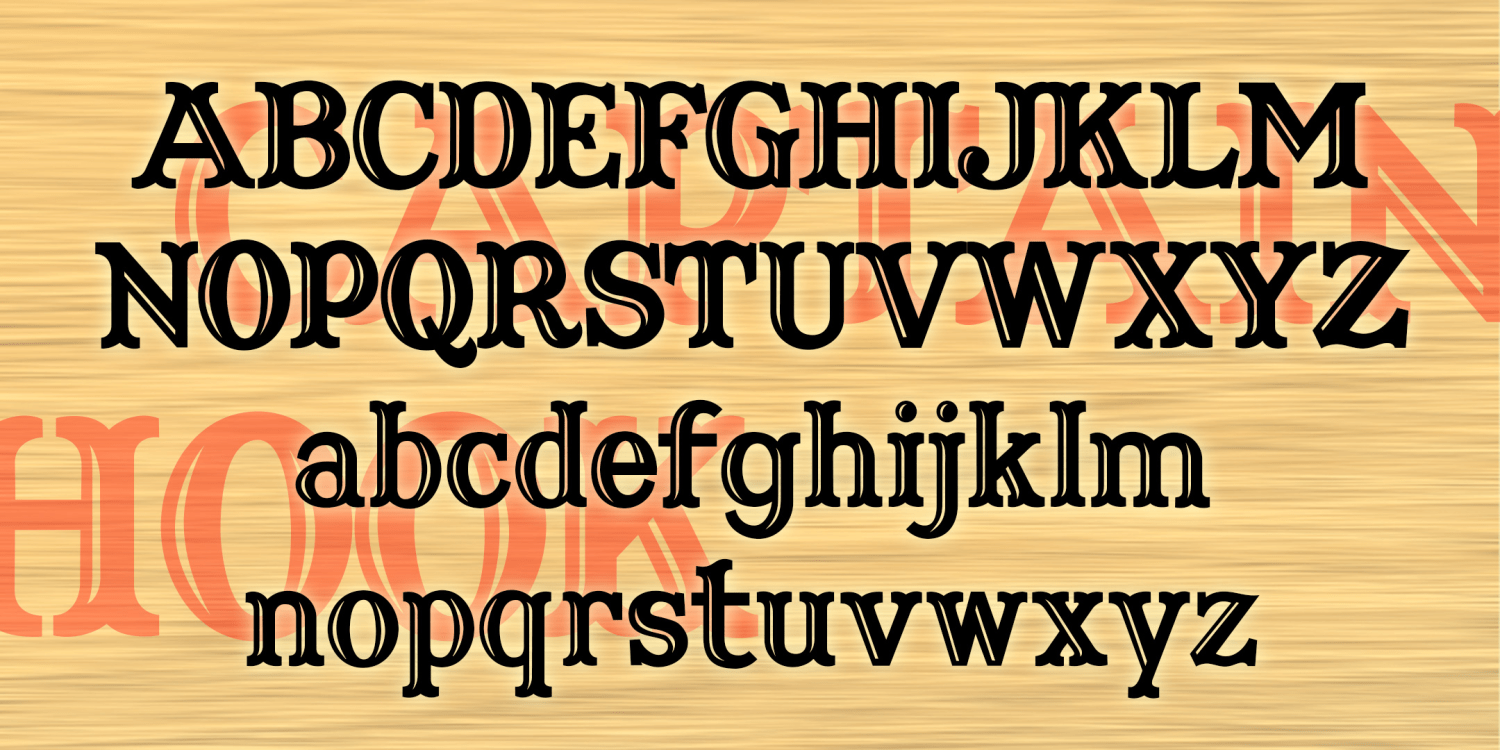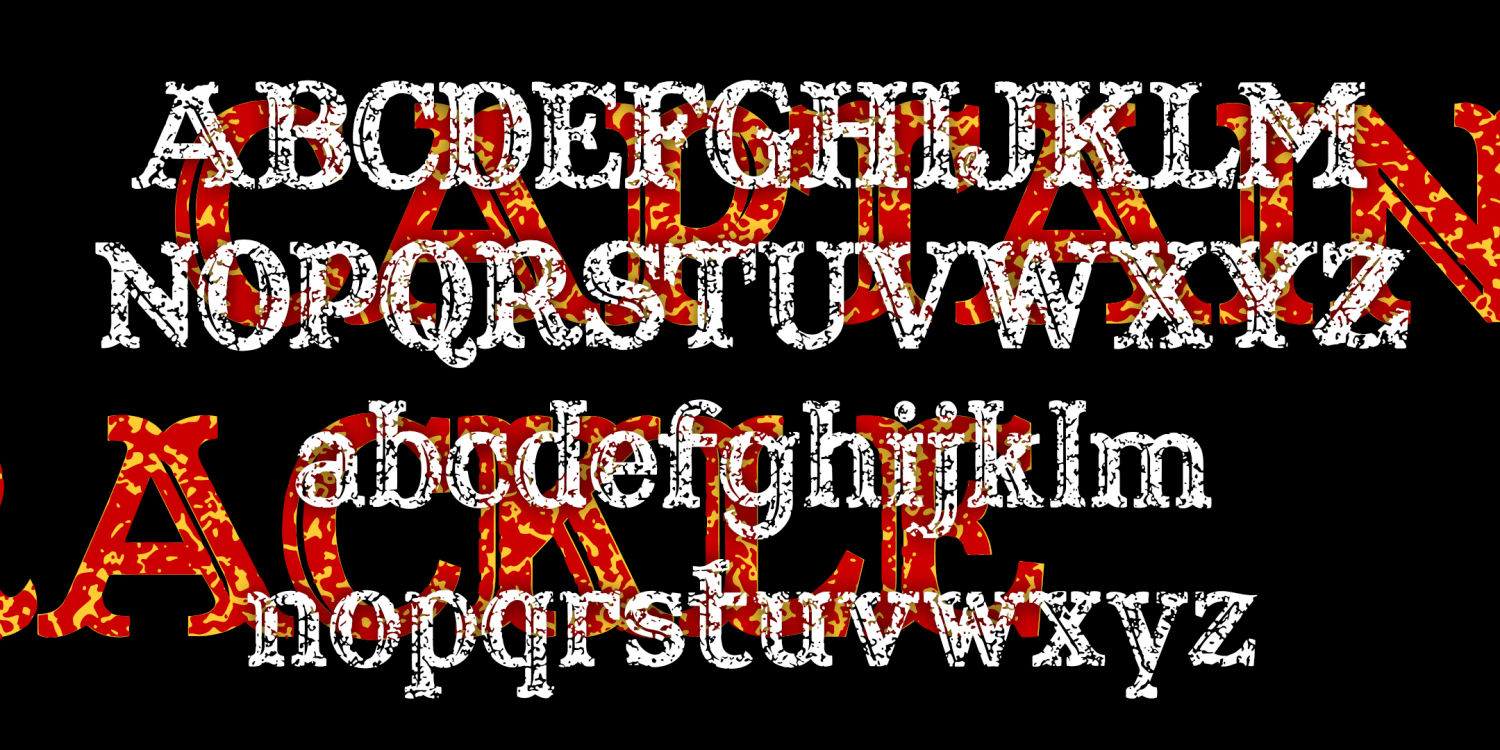
Captain Hook
One of my popular early fonts is Captain Howdy, inspired by the lettering on a Ouija board, a rather jolly woodtype font with curved serifs and engraved highlights. Now there's a whole new font, Captain Hook, that marries the classic caps to an all-new lowercase. Because sometimes you just need lowercase.
And now there's a companion font with a built-in texture, Captain Hook Crackle, with the rustic of an old sign or a well-washed t-shirt.